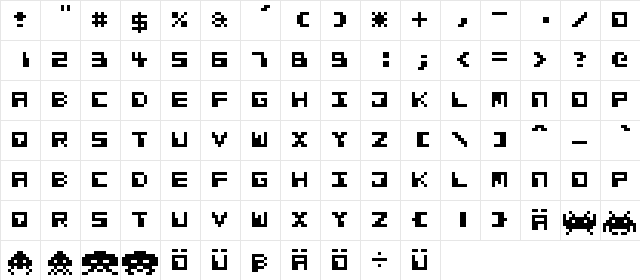
Cosmic Alien Regular
| Designer | ck! |
Design Context for Cosmic Alien Typeface
Cosmic Alien is a composed and adaptable typeface that performs quietly and consistently across a wide range of design contexts.